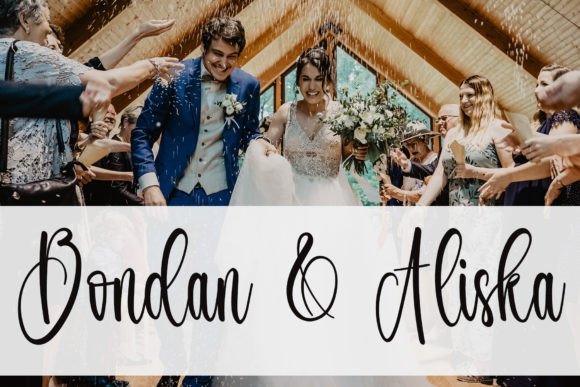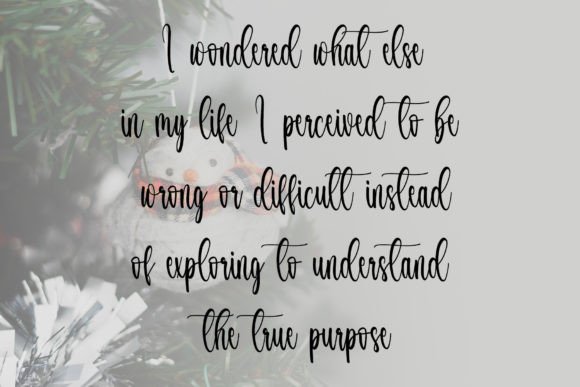
Introduction to Baby Brother Font
Have you ever found yourself in the middle of a creative project, pouring your heart and soul into every detail, only to be stuck on the perfect font to match your vision? This is a moment many designers can relate to, and it’s exactly why we’re excited to introduce you to the Baby Brother Font.
This stunning handwritten font is more than just a design resource – it’s a game-changer. With its contemporary atmosphere and impeccable form, inspired by timeless classic calligraphy, Baby Brother Font is the perfect addition to any creative project. Whether you’re working on a design that requires a touch of elegance or a free download to add some personality to your social media graphics, this high-quality font is sure to deliver.
Key Features of Baby Brother Font
- Features a transparent background, allowing for easy customization and versatility in design.
- Includes a comprehensive character set, covering Latin and Cyrillic scripts, with over 300 glyphs.
- Designed with a unique, playful style that’s perfect for adding a touch of whimsy to your designs.
- Resolution: 300 DPI, ensuring crisp and clear rendering in high-resolution designs.
Honest Review: Baby Brother Font
I recently had the chance to work with the Baby Brother Font, and I must say, it’s been an interesting experience. As a designer, I appreciate high-quality fonts that can elevate a creative project, and this one certainly delivers.
- ✨ Unique and playful design that can add a touch of whimsy to a project
- ✨ Clear and legible even at smaller font sizes
- ⚠️ The font only comes in a transparent background, which can make it difficult to use in certain design situations
- ⚠️ Limited font weights and styles available
Overall, I think the Baby Brother Font is a great addition to any designer’s library. It’s perfect for projects where a playful, hand-drawn feel is desired. With its high quality and free download option, it’s definitely worth checking out.
Tips for Getting the Most Out of Baby Brother Font
Experiment with different font sizes, colors, and styles to create a unique visual effect. Use the transparent background to layer text and graphics for added depth.
Common Use Cases for Baby Brother Font
Use Baby Brother Font for creative projects such as invitations, greeting cards, and social media graphics. Its high-quality design makes it perfect for presentations, posters, and other visual materials.